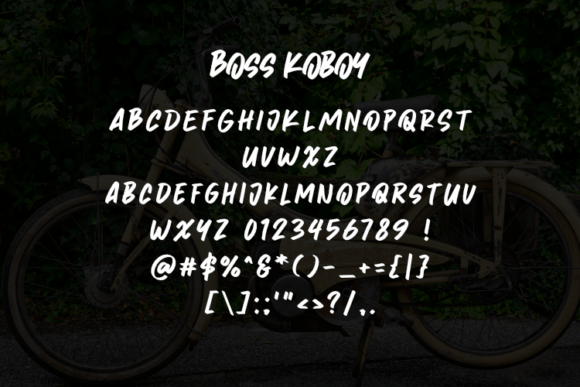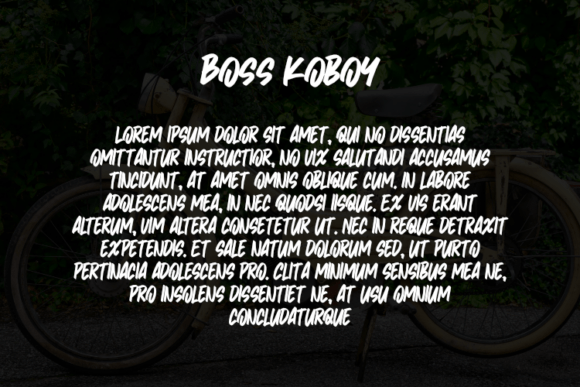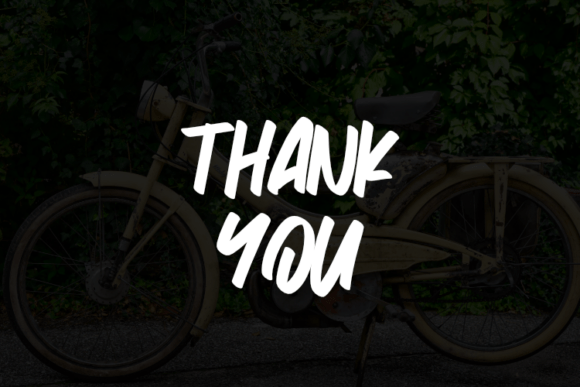
Unlocking Creative Potential with Boss Koboy Font
I’ll never forget the moment I stumbled upon the perfect font for a client’s fashion brand. I was working late, sifting through pages of Google search results, and testing font after font in Canva. The project was on a tight deadline, and I was determined to find that one special typeface that would bring the brand to life. That’s when I discovered Boss Koboy – a game-changing font that exceeded my expectations in every way.
An Honest Review of Boss Koboy
- ✨ Versatility: Boss Koboy seamlessly integrates into any design plan, making it perfect for a wide range of projects.
- 🔍 Rich Features: With OpenType features, glyphs, and stylistic alternates, designers have plenty of creative options at their fingertips.
While Boss Koboy is an exceptional font, there are a few minor considerations to keep in mind:
- ⚠️ Some users might find the font’s distinctive style too bold for certain projects, requiring careful consideration of design balance.
- 🤔 Advanced typographic features may require a bit of learning for those new to OpenType fonts or glyph exploration.
The Inspiration Behind Boss Koboy
Rumor has it that Boss Koboy was inspired by the urban fashion scene, where style and creativity know no bounds. Its designer aimed to create a typeface that embodies the confidence and panache of city streets, while also being versatile enough for various design applications. Whether you’re crafting trendy t-shirts or conceptualizing a forward-thinking fashion line, Boss Koboy is designed to bring your vision to life.
| Author | Eric Kusuma |
Q: Is Boss Koboy suitable for body text?
A: While Boss Koboy is primarily designed for headlines and titles, its clarity and readability make it suitable for short paragraphs of body text. However, for extensive reading content, a more traditional serif or sans-serif font might be more appropriate.